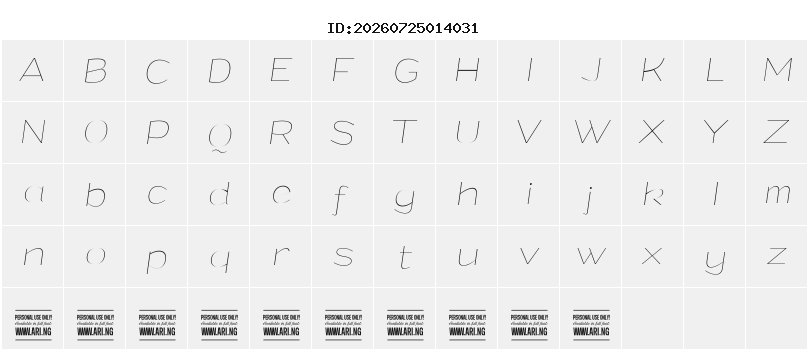
Grandi PERSONAL USE Preview
• Font Name: Grandi PERSONAL USE
• Font Style: Thin Italic
• Full Font Name: Grandi PERSONAL USE Thin Italic
• PostScript Name: GrandiPERSONALUSE-ThinItalic
• Designer: MÂns Greb‰ck
• Manufacturer: MÂns Greb‰ck
About Grandi PERSONAL USE.ttf
Grandi PERSONAL USE.ttf is a modern, elegant sans-serif font designed for ultimate readability and visual harmony. Perfect for branding, headlines, web design, and print materials.